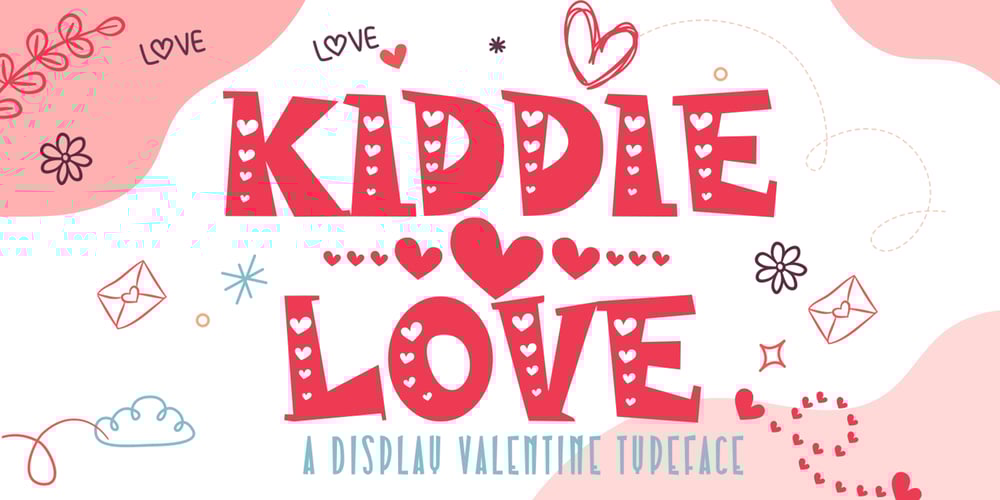
Kiddie Love Font Family was designed by Sipanji and published by Sipanji21. Kiddie Love contains 1 styles and family package options. Kiddie Love is a lovely display font that radiates charm. It features gorgeous hearts in each letter which give it an incredibly romantic feel. this font suitable for valentine day poster, logo, t shirt, event banner and etc. you can use this font for any design, apparel, kids logo, logo type, with many swash for make your design awesome.feature : Kiddie Love Uppercase Kiddie Love Number and Punctuation Kiddie Love Multilingual Kiddie Love Swash